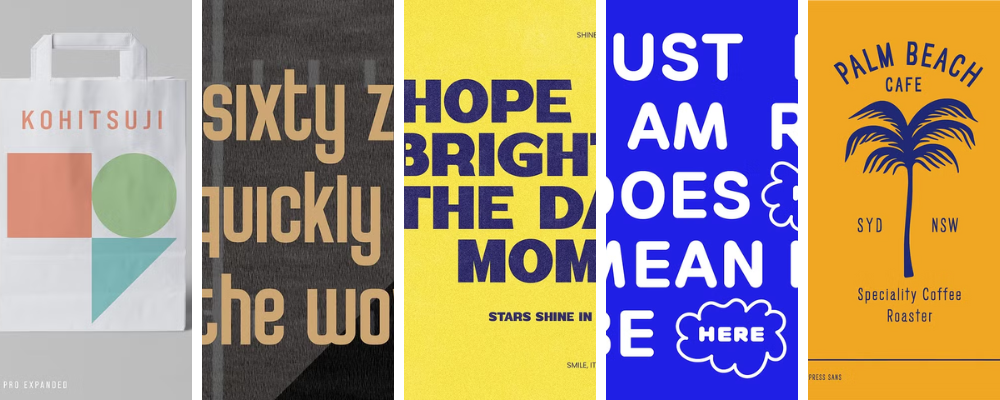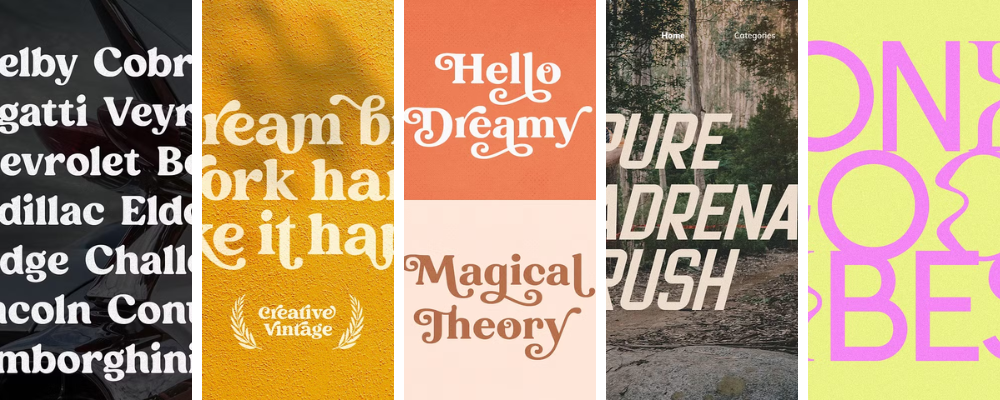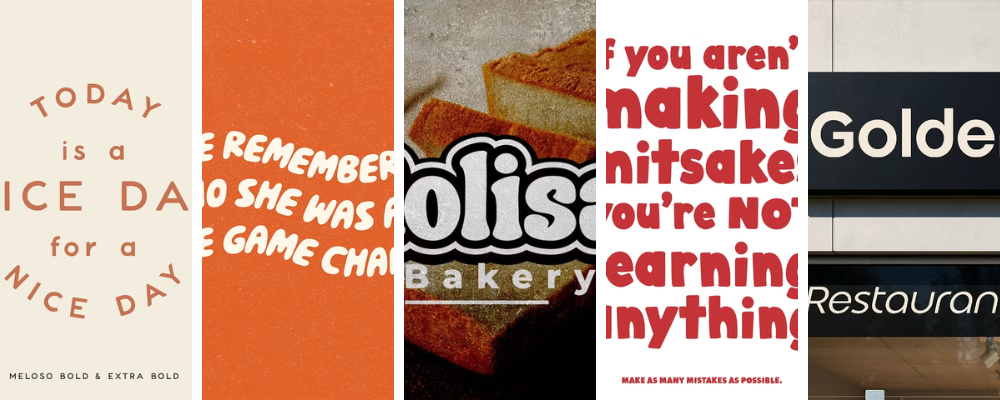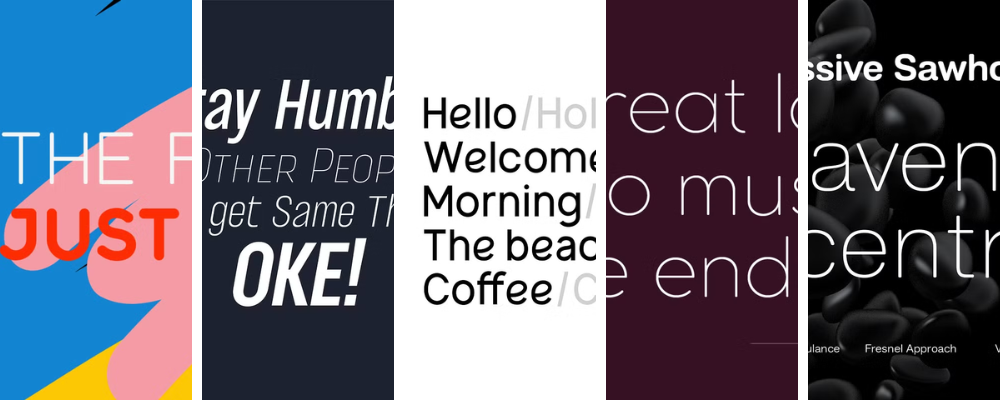
Trendy Fonts to Try in 2026
People are scrolling faster than ever, and your visuals have to work overtime to get noticed online. Choosing the right font is part of what helps make a good first impression and stop the scroll. The right font in 2026 doesn’t just look good, it builds trust, helps you stand out, and communicates relevance. Whether you’re updating your branding, designing a social media graphic, or creating a digital product, you’ll want to choose your trendy fonts carefully! Let’s talk about the fonts that are making waves in 2026 (and that you might just add to your next design).
Bold and Modern Sans Serif
Trendy fonts don’t have to be loud. Actually, a big trend I predict for 2026 is a return to a cleaner, simpler look. These fonts are minimalist while also being made to stand out. They’re perfect for headers and social graphics, where clarity is important (but so is getting noticed).
Bebas Neue Pro* – A font family that’s giving editorial and chic
Pro League* – This trendy font was made for the jumbotron
Work News* –  If you want to make a bold statement, do it in this font
Letterpress Sans* – Clean and modern, while feeling homey and handmade
Phluff Variable* – It’s a modern take on the classic bubble font
Soft and Rounded Styles
Sometimes modern is confused with stiff and stale, but these trendy fonts prove otherwise. These typefaces feel welcoming and friendly, with smooth edges and rounded corners. They’re perfect for digital products, websites, and classroom resources.
Meloso* – It has a hand-drawn charm that feels very trip to a small town in Italy
Doing Great* – Make a statement with this cute and girly typeface
Sauce Tomato* – It wouldn’t be a list of trendy fonts without a rounded, retro typeface
Cobnut* – This font has plenty of personality and lots of variability
Marble* – The rounded letters give this trendy font a unique look
Retro-Inspired Fonts (with Personality)
Retro fonts have been trending for a while now. Which means if you want to stand out, you need a slightly different take on the usual retro vibe. These trendy fonts fit the bill (and you’ll be excited to use them across your designs).
Rolla* – You’d find this font on a record label or DJ booth
Creative Vintage* – A font pairing with an imperfect, shabby look (while still being put together)
Stropica* – A curly, trendy font that would fit perfectly in the 70’s
Cheapsman* – This font might be scrawled across the back of a varsity jacket
Free Lunch* – A playful font that could be found on a 50’s diner menu
Only Good Vibes* – If Gen Z were a retro font, it would be this one
Wonder Nature* – A handwritten font duo that feels organic and old school
Clean and Clear Fonts for Accessibility
You know what’s always on trend? Accessibility! These easy-to-read typefaces make your designs inclusive, without losing style. Check out these trendy fonts and make your designs accessible to everyone.
Modulus Pro* – This rounded sans serif comes in several easy-to-read weights
OKE!* – A variable font that’s elegant, modern, and oh-so-slim
Hando Soft* – Rounded edges give this font a soft vibe
MB Vintage* – It’s chunky, bold, and easy to read
Cocomat Pro* – It has character and spunk, while maintaining clarity
Avalon* – It’s legible, multilingual, and has a unique style